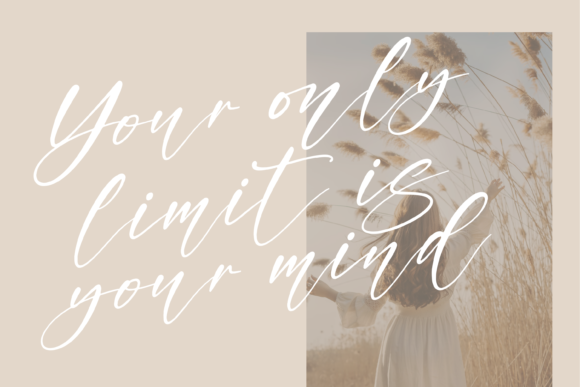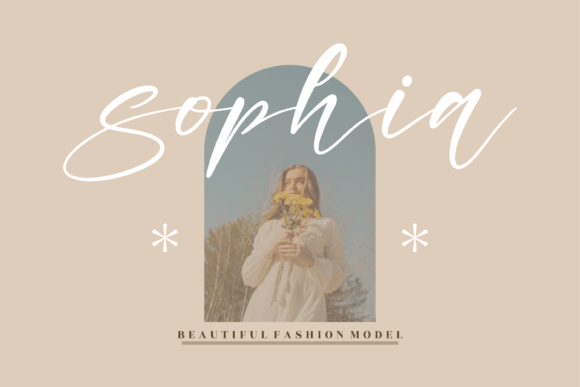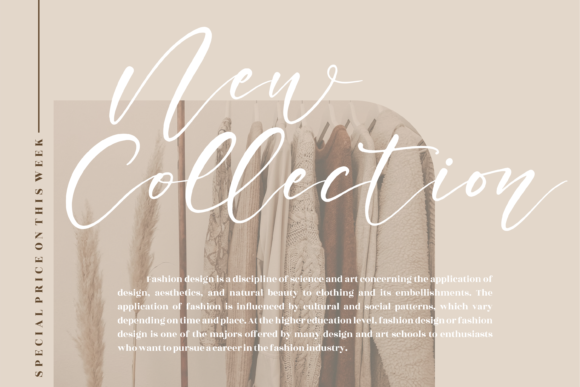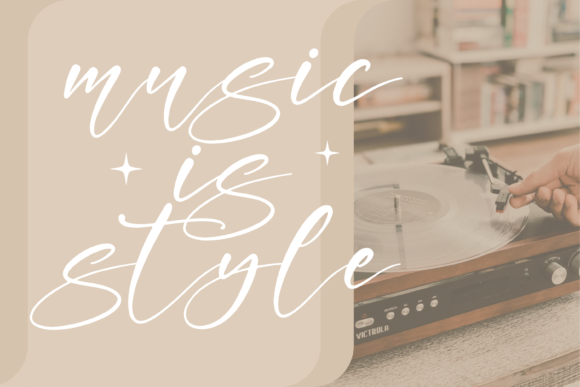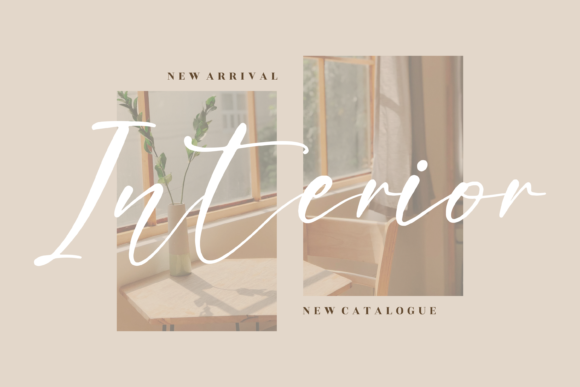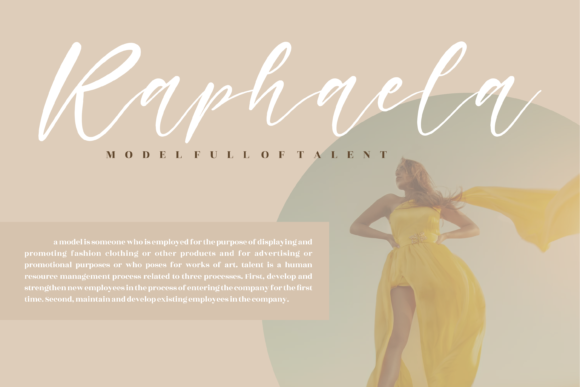
Introduction to Melati Font
Do you ever find yourself in the midst of a creative project, pouring over design options, searching for the perfect font to bring your vision to life? For many of us, this is a common experience. We’re always on the lookout for that one special font that sets our designs apart and adds an extra layer of beauty. That’s where the Melati Font comes in – a stunning script font that’s perfect for a wide range of creative projects.
Whether you’re working on a logo, branding project, or simply need a beautiful font for a quote or poster, the Melati Font is an excellent choice. Its elegant, flowing lines make it a great fit for any design project that requires a touch of sophistication and style. And the best part? It’s available for free download, making it an invaluable design resource for designers of all levels.
Key Features of Melati Font
- High-quality design for various creative projects, including digital art, graphic design, and typography.
- Unique, elegant design with a transparent background, making it perfect for projects requiring a subtle touch.
Honest Review: Melati Font
I recently stumbled upon the Melati Font, and I’m excited to share my thoughts on this design resource. As a designer, I’m always on the lookout for high-quality fonts that can elevate my creative projects.
- ✨ The Melati Font has a beautiful, elegant design that’s perfect for any project that requires a touch of sophistication.
- ✨ The font is highly versatile and can be used for a variety of applications, from headings to body text.
- ⚠️ The Melati Font doesn’t support transparent backgrounds, which can be a bit of a limitation for designers who need to use it on images or videos.
- ⚠️ The font is not as extensive as some other options on the market, with only a limited number of weights and styles available.
Overall, I’m impressed with the Melati Font, and I think it’s a great addition to any designer’s toolkit. While it may have a few limitations, its high quality and elegant design make it a great choice for creative projects.
The Melati Font is suitable for a variety of creative projects, including logos, brochures, business cards, and social media graphics. Its transparent background makes it easy to use with images and graphics.
Tips for Getting the Most Out of Melati Font
To get the most out of Melati Font, experiment with different font sizes, colors, and styles to find the perfect combination for your design. Use the font with a transparent background to create a modern and sleek look.
Can I use the Melati Font with a transparent background?
Yes, the Melati Font is designed to be used with a transparent background, making it ideal for design projects that require a clear or see-through effect. You can use the font with a transparent background in graphic design software like Adobe Illustrator or Photoshop.